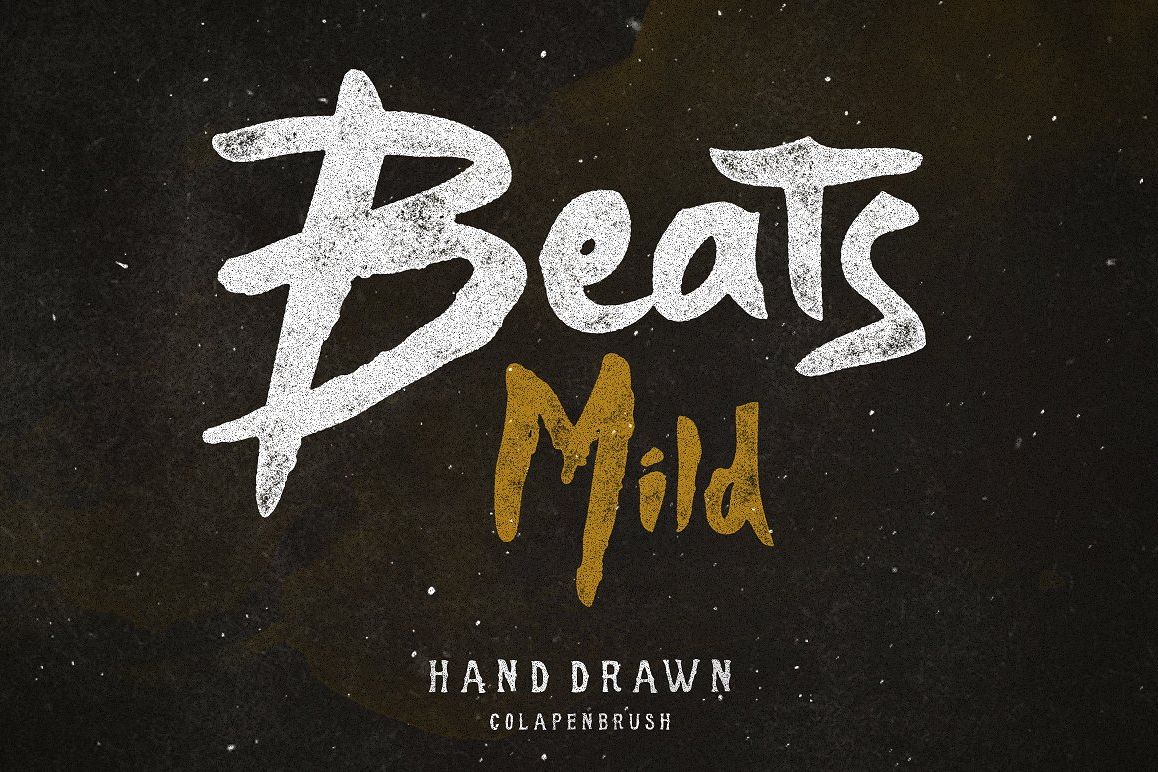
Beats
Hello There, After Baurbon Font, I've creating the new fonts. It's called Beats ! I made this inspired when I try the cheapest tools I've ever made. Colapen, Created by cutting the cans of coke.This font specially created for lettering, long wording, badges, logo, etc.What's Inside : • Beats OTF. • Texture brush pack (PNG).
Beats